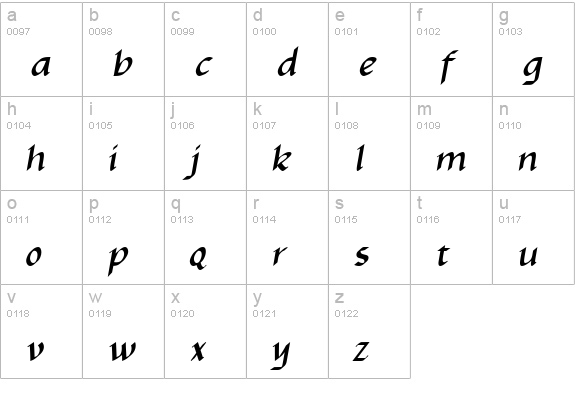
Yngreena BoldItalic Font Details
Introducing Yngreena BoldItalic font, a stunning and elegant typeface that exudes sophistication and creativity. With its bold and italicized design, Yngreena BoldItalic is perfect for adding a touch of flair to your projects. This versatile font is ideal for a wide range of design applications, from branding and advertising to editorial and packaging. What sets Yngreena BoldItalic apart is its seamless blend of modernity and classic elegance, making it a timeless choice for any project. The sleek lines and curves of this font give it a dynamic and eye-catching appearance that is sure to captivate your audience. Best of all, Yngreena BoldItalic is available for free download at FontsMarket.com. This means that you can easily access this beautiful font and start using it in your projects right away. Don't miss out on the opportunity to enhance your designs with the sophisticated charm of Yngreena BoldItalic. Download it today and elevate your creative work to the next level.